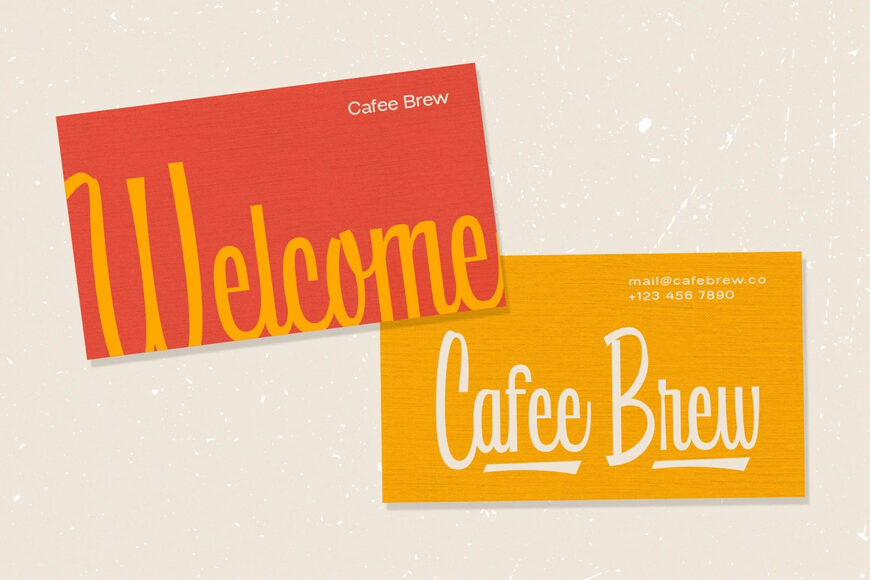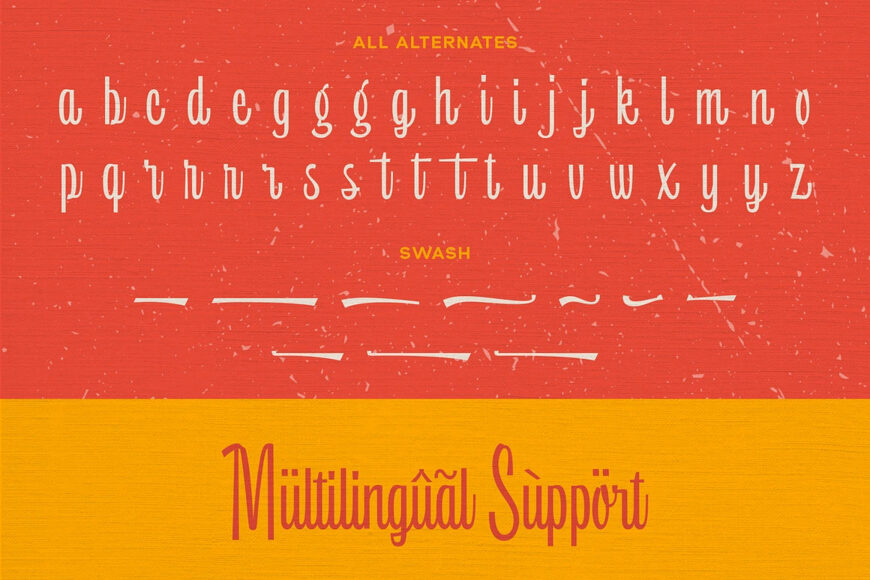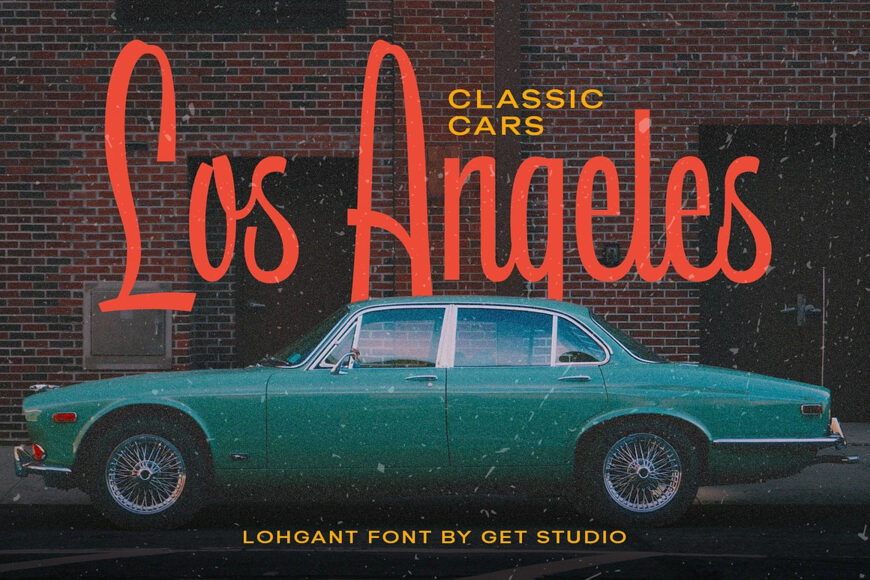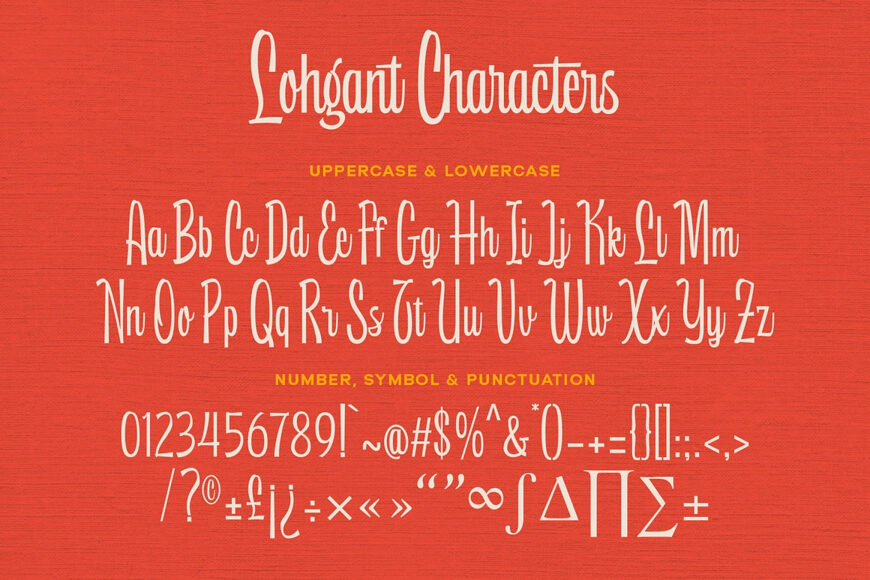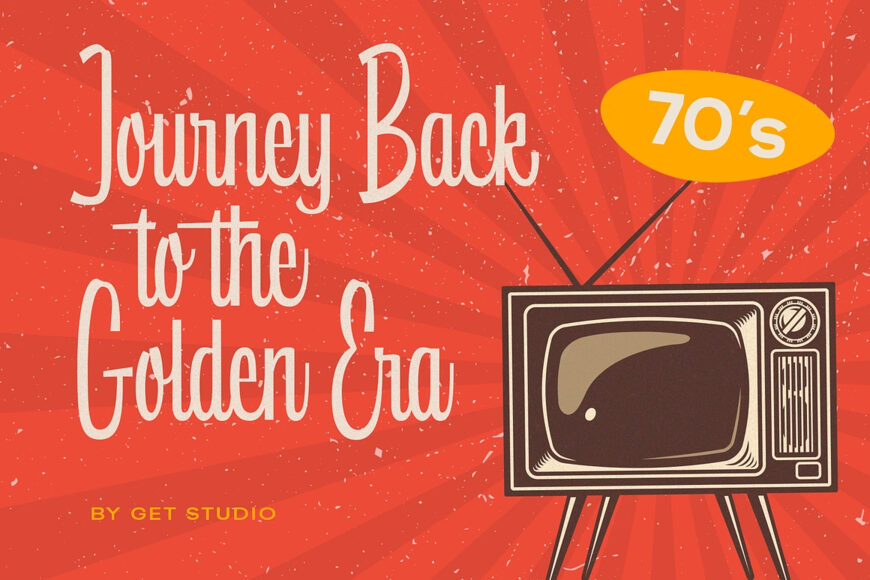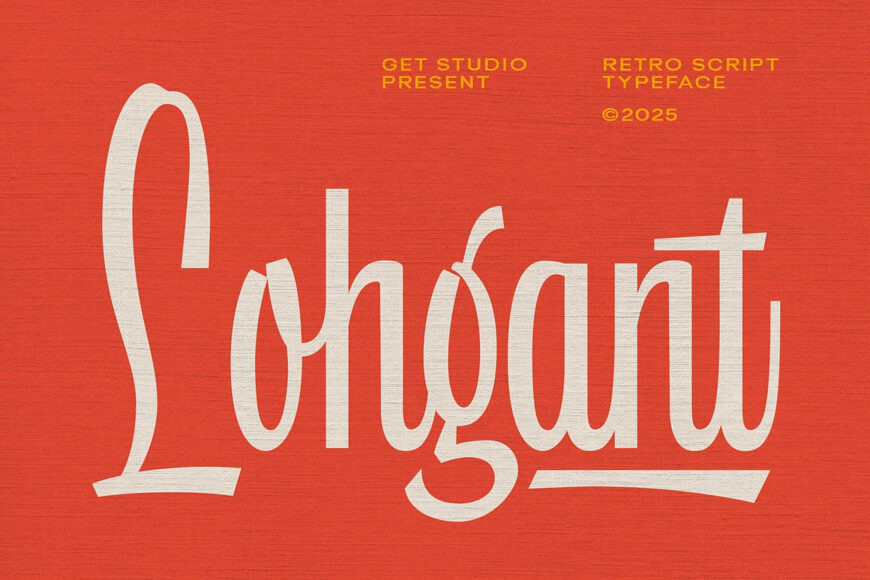
Lohgant Font
Add effortless vintage flair and mid-century warmth to your designs with Lohgant, a retro script typeface! Featuring elongated ascenders, sweeping swashes, and a tall, condensed handwritten flow, this font beautifully captures the nostalgic charm of classic signage and mid-century advertising typography.